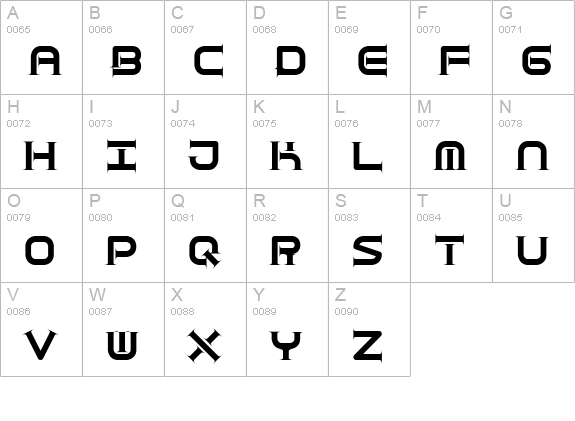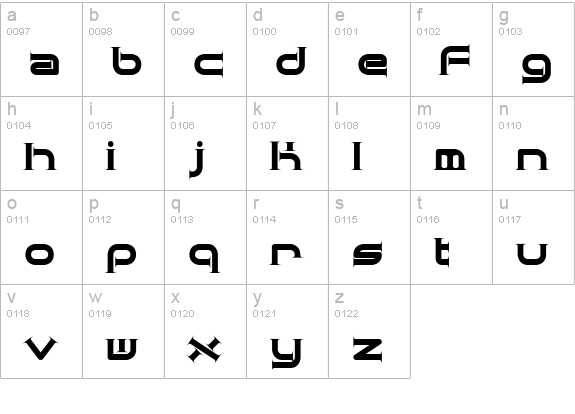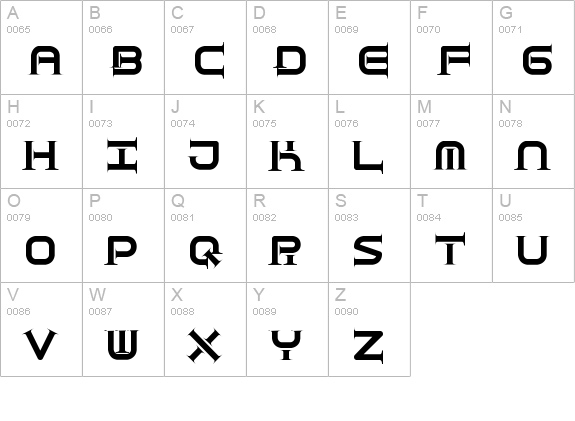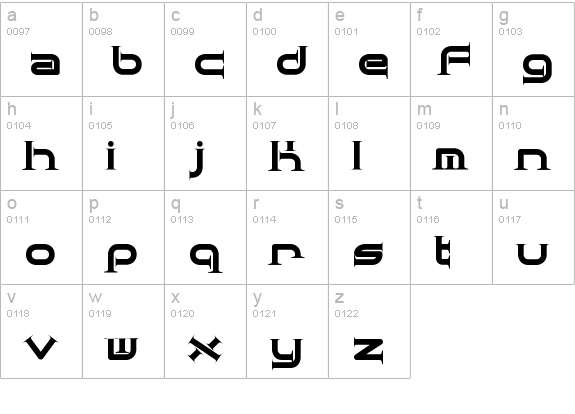
Quantum Taper (BRK) is a stunning font that exudes elegance and sophistication. With its unique blend of sleek lines and tapered edges, this typeface is sure to leave a lasting impression. The delicate curves and precise angles create a sense of balance and harmony, making it perfect for a variety of design projects. Whether you're working on a logo, a website, or a print advertisement, Quantum Taper (BRK) will elevate your work to the next level. Its clean and crisp design ensures clarity and readability, while its modern aesthetic adds a touch of contemporary flair. But what truly sets Quantum Taper (BRK) apart is its versatility. This font seamlessly transitions between formal and informal settings, making it suitable for both professional and creative endeavors. Its timeless appeal makes it a great choice for anything from wedding invitations to business presentations. And the best part? Quantum Taper (BRK) is freely available to download at FontsMarket.com. This means you can enhance your designs without spending a dime. With just a few clicks, you can have access to this incredible font and take your projects to new heights. So why settle for ordinary fonts when you can have Quantum Taper (BRK)? Download it today and unlock a world of possibilities for your design endeavors.